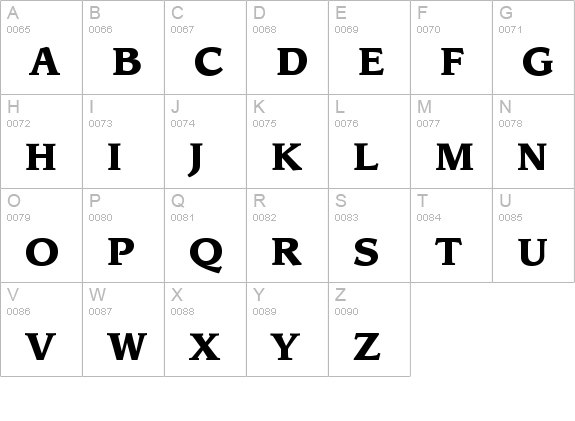
LeawoodEF-Black is a maximum-weight, dramatic variant in the LeawoodEF typeface family \xE2\x80\x94 well suited to maximum-impact headlines, posters, and packaging.